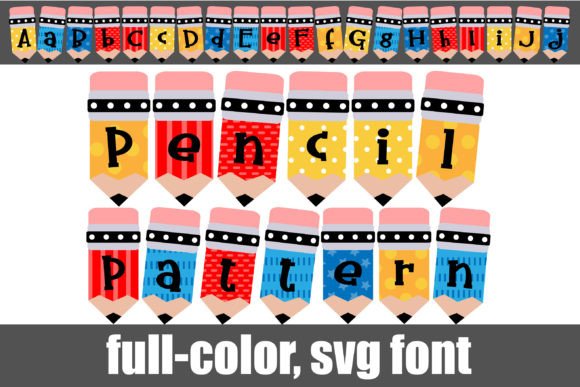
Introducing the Pencil Pattern Font, the best font for kids invitations that will instantly captivate your audience and add a touch of whimsy to your designs. Created by Illustration Ink, this full-color font showcases a playful serif typeface on vibrant, patterned pencils, making it the perfect choice for any project targeting young audiences.
But what sets the Pencil Pattern Font apart from other fonts? It's the alt versions of each letter, available in different eye-catching colors. With just a simple click of your system character map, you can unlock a whole new world of creativity and customization. Whether you're designing invitations, posters, or even logos, this font allows you to infuse your creations with a burst of color and personality.
Now, let's talk about the benefits of using full-color SVG fonts. First and foremost, they offer unparalleled versatility. Whether you're working on branding, web design, or print projects, these fonts adapt effortlessly to meet your needs. Their scalability is another remarkable feature, ensuring that no matter the size, your text remains crisp and clear. Say goodbye to pixelated fonts!
Furthermore, full-color SVG fonts boast exceptional quality and resolution. No matter how much you enlarge or reduce them, their crispness remains intact. Plus, their user-friendliness is unparalleled. These fonts seamlessly integrate with any software that supports SVG fonts, making them accessible to everyone, regardless of their design expertise.
If you're seeking a font that effortlessly combines versatility, high quality, and ease of use, look no further than the Pencil Pattern Font. With its wide range of colors and styles, you can create stunning text logos, intricate illustrations, and everything in between. Let your imagination run wild with this font, and watch as your designs come to life in vibrant, captivating hues.